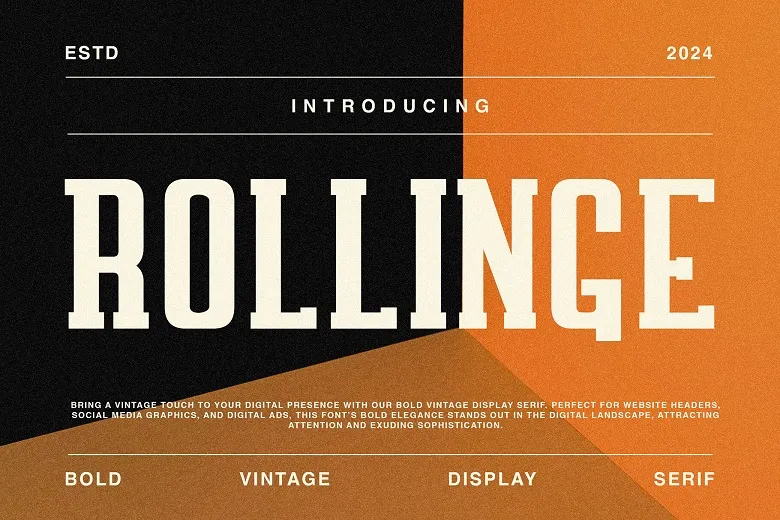
Rollinge Font is a geometrical slab serif font with a very clean look and style and the best part is it has a lot of stylistic alternatives so as to give your designs the desired look. This is highly customizable and can be used for logos, branding, posters, clothing designs, magazine titles, labels, etc.